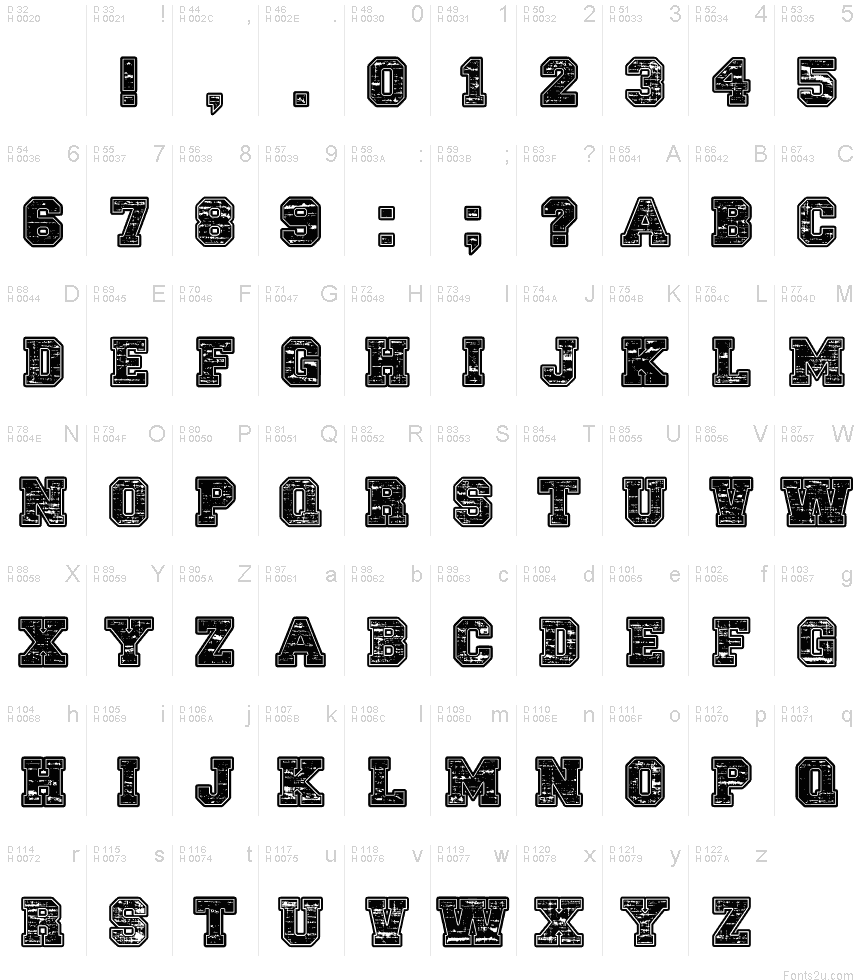
Lethal League by Imagex is a free eroded military display font with the broad, squared build of classic collegiate block lettering. Heavy slab shapes, clipped corners, and a narrow inset line give the capitals a layered badge-like structure, with scratches packed across their faces.
Sports posters and action-game graphics draw on different worlds, yet both benefit from its mix of varsity scale and hard-used surface texture. Printed team merchandise and tactical event branding can turn the lettering into a complete emblem, uniform mark, or distressed piece of campaign artwork. Its clearest audience follows team sports, arcade combat, and rugged streetwear.